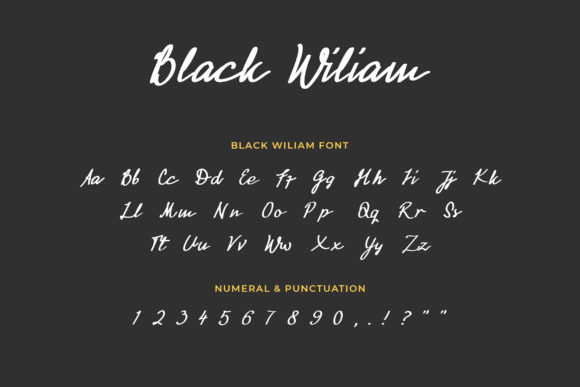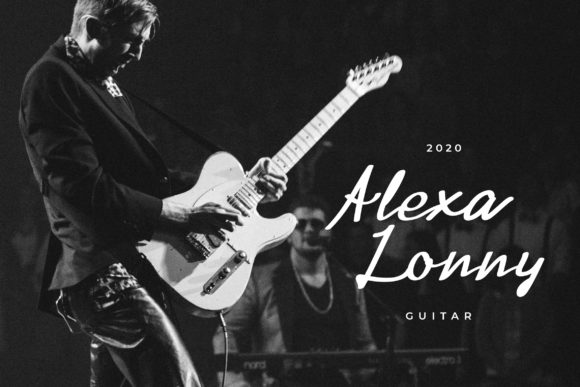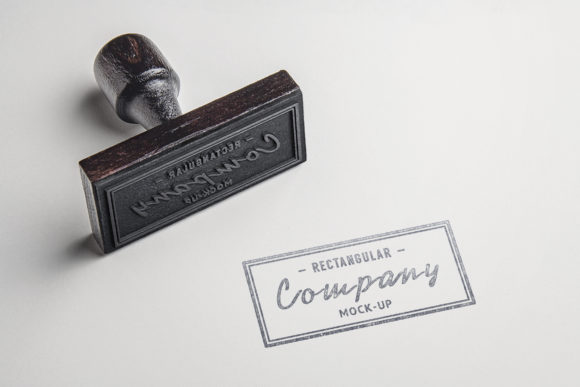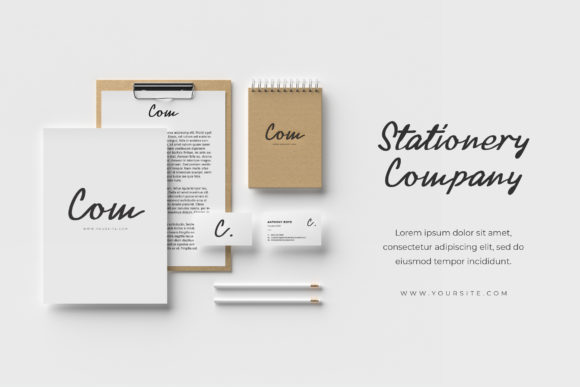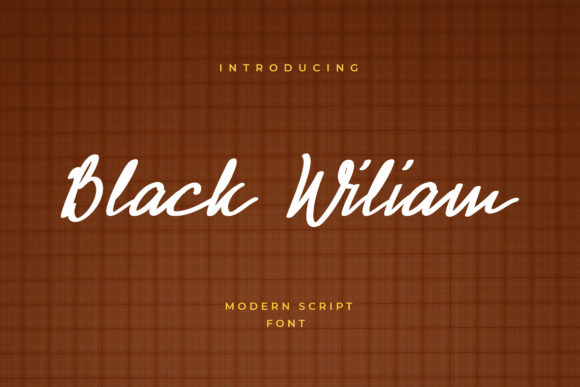
Discover the Elegance of Black William Font: A Simple yet Trendy Cursive Script
In the world of typography, fonts play a crucial role in conveying messages, expressing emotions, and creating a lasting impression. For designers, crafters, and anyone looking to add a touch of elegance to their projects, the Black William Font is a gem worth exploring. This simple yet stylish cursive script font has been making waves in the design community, and for good reason. In this article, we’ll dive into the characteristics, uses, and benefits of the Black William Font, and why it’s becoming a favorite among creatives.
What is Black William Font?
Black William is a beautiful, cursive script font that exudes a trendy vibe. Its simplicity is one of its most striking features, making it versatile enough to be used in a variety of design projects, from formal invitations and elegant branding to informal social media posts and craft projects. The font’s clean lines and fluid curves give it a modern feel that’s hard to resist.
Key Features of Black William Font
- Simplicity: The font’s simple design makes it easy to read and versatile for various applications.
- Cursive Script: Its cursive nature adds a touch of elegance and sophistication to any project.
- Trendy Vibe: The modern feel of Black William makes it perfect for designers looking for a font that’s both current and classic.
- Versatility: It can be used for both formal and informal projects, making it a valuable addition to any designer’s toolkit.
Uses of Black William Font
The versatility of Black William Font is one of its most appealing qualities. Here are some ways you can use this beautiful font:
- Branding: Use Black William for logos, business cards, and letterheads to give your brand a sophisticated look.
- Invitations: Whether it’s a wedding invitation, birthday party, or corporate event, this font adds a touch of elegance.
- Social Media Graphics: Create eye-catching social media posts, banners, and stories with a modern and trendy feel.
- Crafting: Perfect for crafters, Black William can be used for making DIY project labels, cards, and journal entries.
- Web Design: Enhance your website’s aesthetic with Black William, especially for headings, quotes, and testimonials.
Benefits of Using Black William Font
Why should you choose Black William Font for your next project? Here are some benefits:
- Ease of Use: Its simplicity ensures that it’s easy to read and understand, making it accessible to a wide audience.
- Flexibility: Works well in both digital and print formats, giving you the flexibility to use it across different mediums.
- Timeless Appeal: Despite its trendy vibe, Black William has a classic feel that won’t go out of style anytime soon.
- Endless Variations: Experiment with different sizes, colors, and styles to create unique and personalized designs.
Tips for Getting the Most Out of Black William Font
To truly leverage the potential of Black William Font, consider the following tips:
- Mix and Match: Combine Black William with other fonts to create interesting contrasts and hierarchies in your designs.
- Play with Colors: Experiment with different colors to see how they affect the overall mood and appearance of your design.
- Adjust Sizes: Use varying sizes to emphasize certain parts of your text and create visual interest.
- Add Effects: Try adding subtle effects like shadows or outlines to give your text some extra depth.
Black William Font is a simple yet stylish cursive script font that offers a world of creative possibilities. Its trendy vibe, versatility, and timeless appeal make it an excellent choice for designers and crafters alike. Whether you’re working on a formal project or something more casual, Black William is sure to add a touch of elegance and sophistication. So, have fun with this beautiful font, explore its endless variations, and watch your designs come to life in ways you never thought possible.